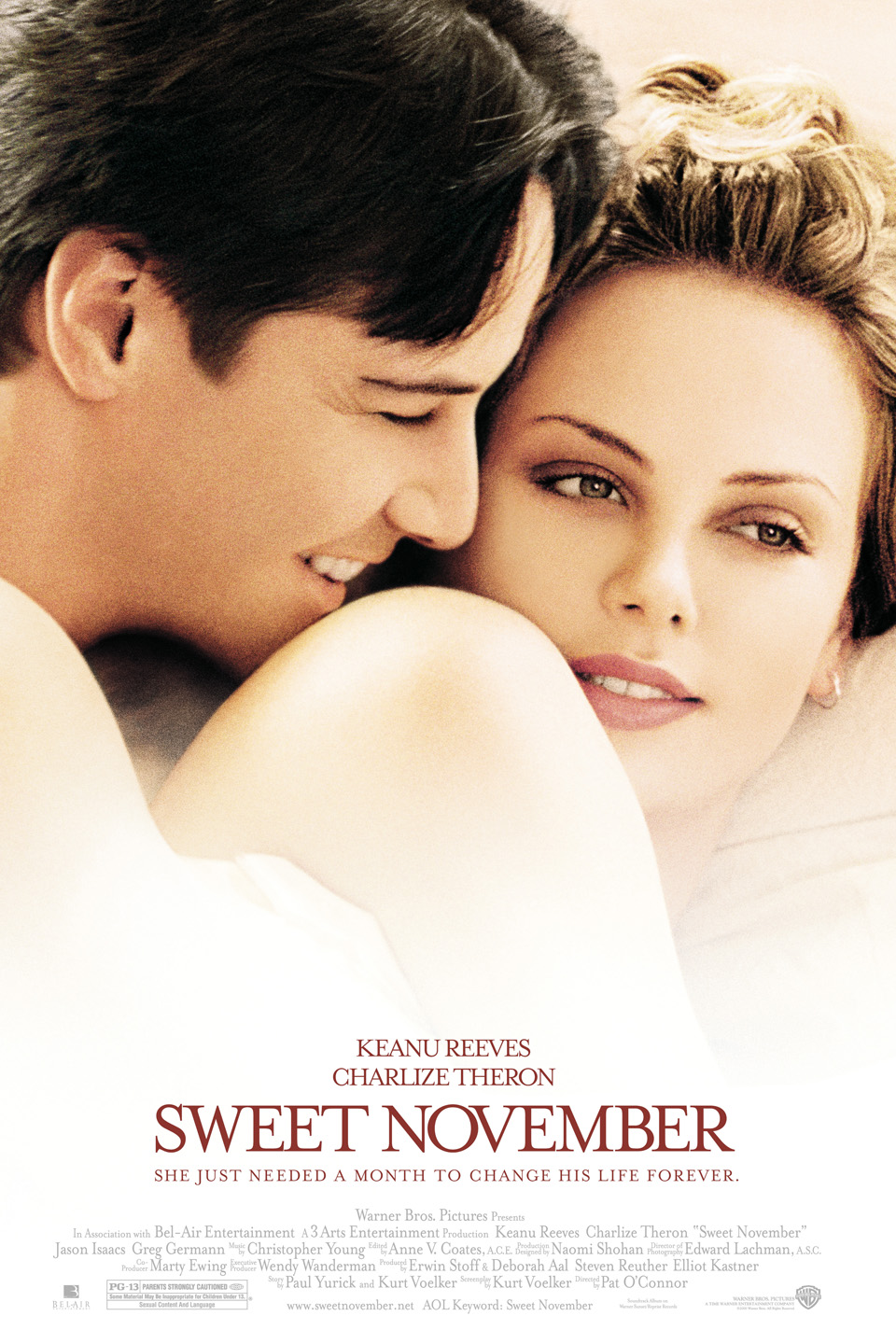
Sweet November (film) Font
Fonts in UseSweet November is a romantic drama film released in 2001, starring Keanu Reeves and Charlize Theron. The movie tells the story of a carefree woman who decides to spend a month with a different man every November, but things change when she meets a workaholic advertising executive.
Mrs Eaves Roman is the font used on the poster for the film, which is a transitional serif typeface created by Zuzana Licko and published by Emigre. It's a modified version of Baskerville, named after Sarah Eaves, John Baskerville's wife.